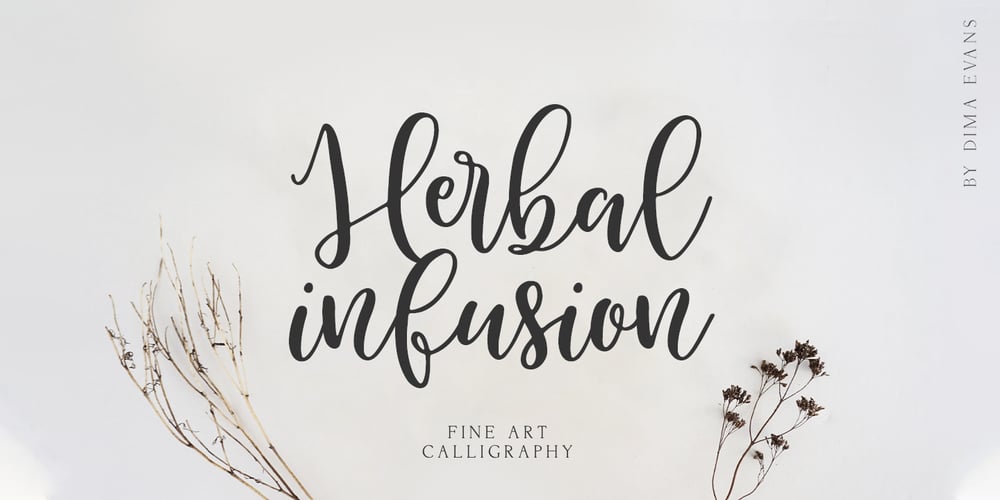
Herbal Infusion
Herbal Infusion font
Herbal Infusion Font Family was designed by Dmitrii Chirkov and published by Supfonts. Herbal Infusion contains 1 styles and family package options. Herbal Infusion is a sweet, modern calligraphic font with ligatures. It is perfect for branding, wedding invitations and invitation cards and many moreFont includes a full set of gorgeous uppercase and lowercase letters, numbers, a large selection of punctuation marks and ligatures.Includes: Regular Script Latin languages support Uppercase and lowercase Numbers and punctuation Ligatures Check out my blog: https://www.instagram.com/di.zigner pinterest.com/dmitriychirkov7 Enjoy